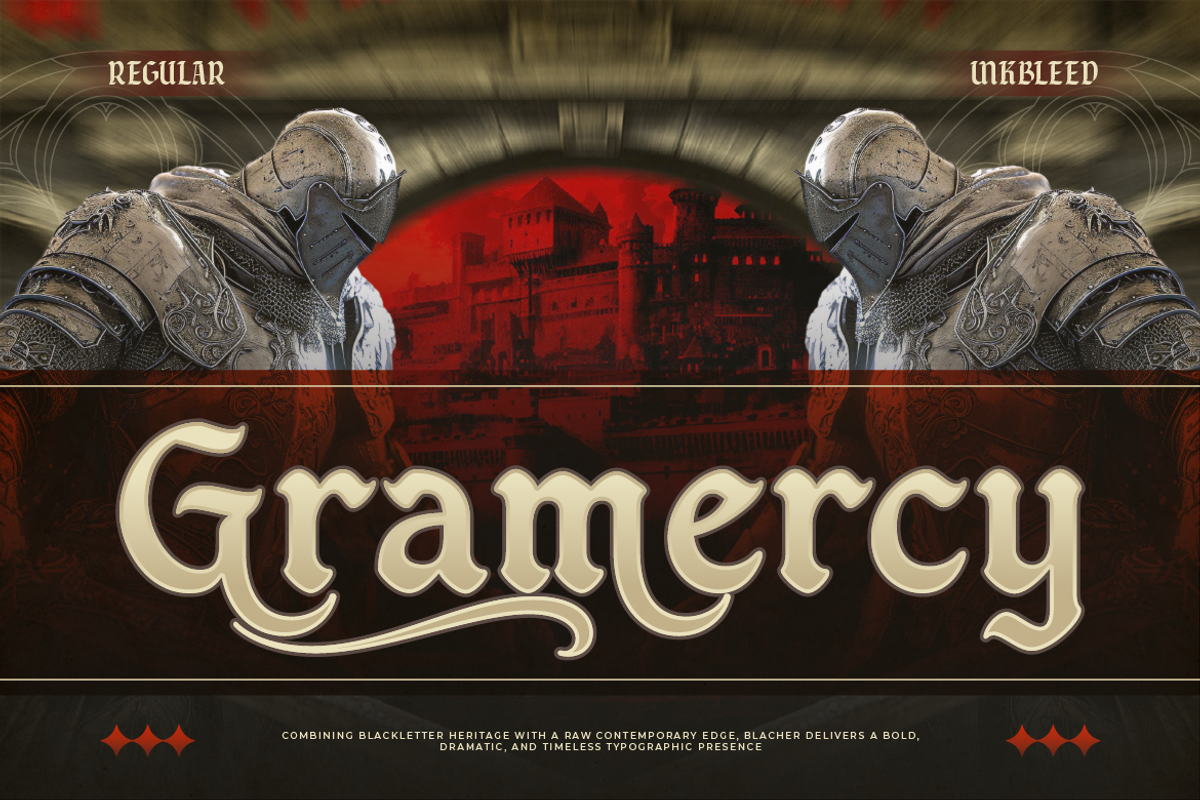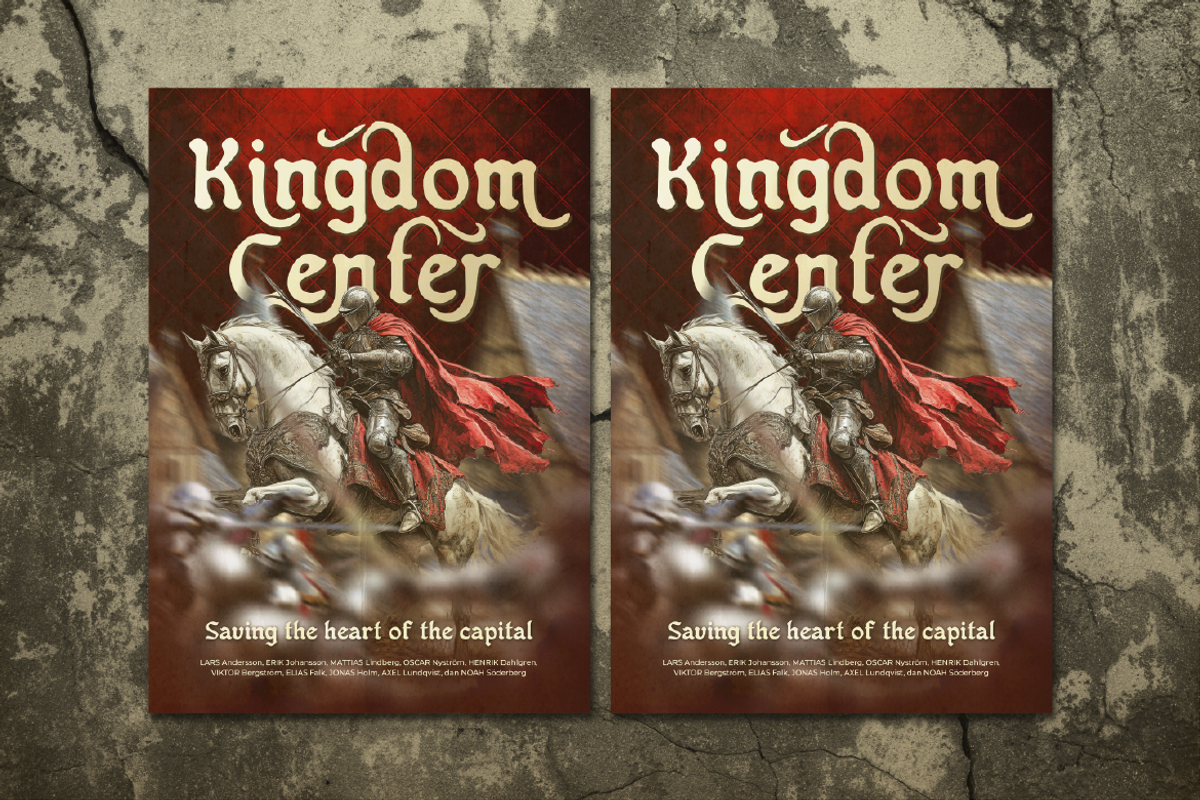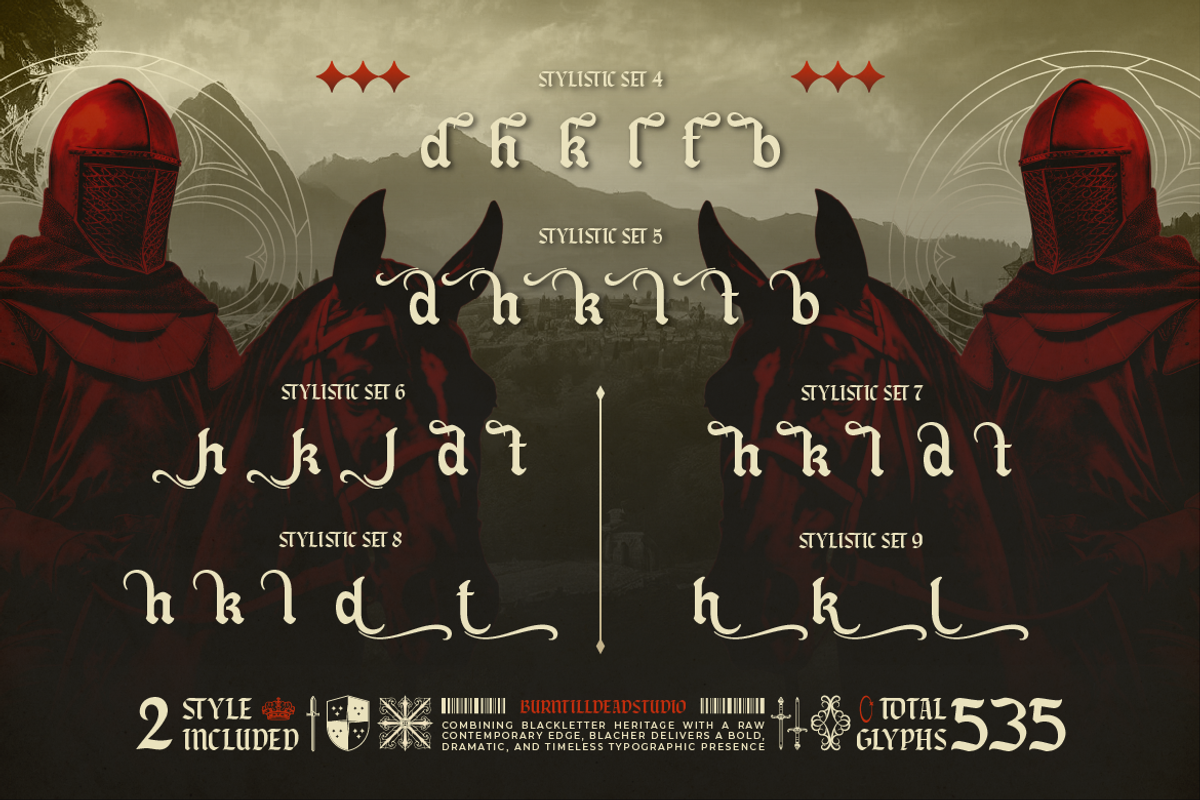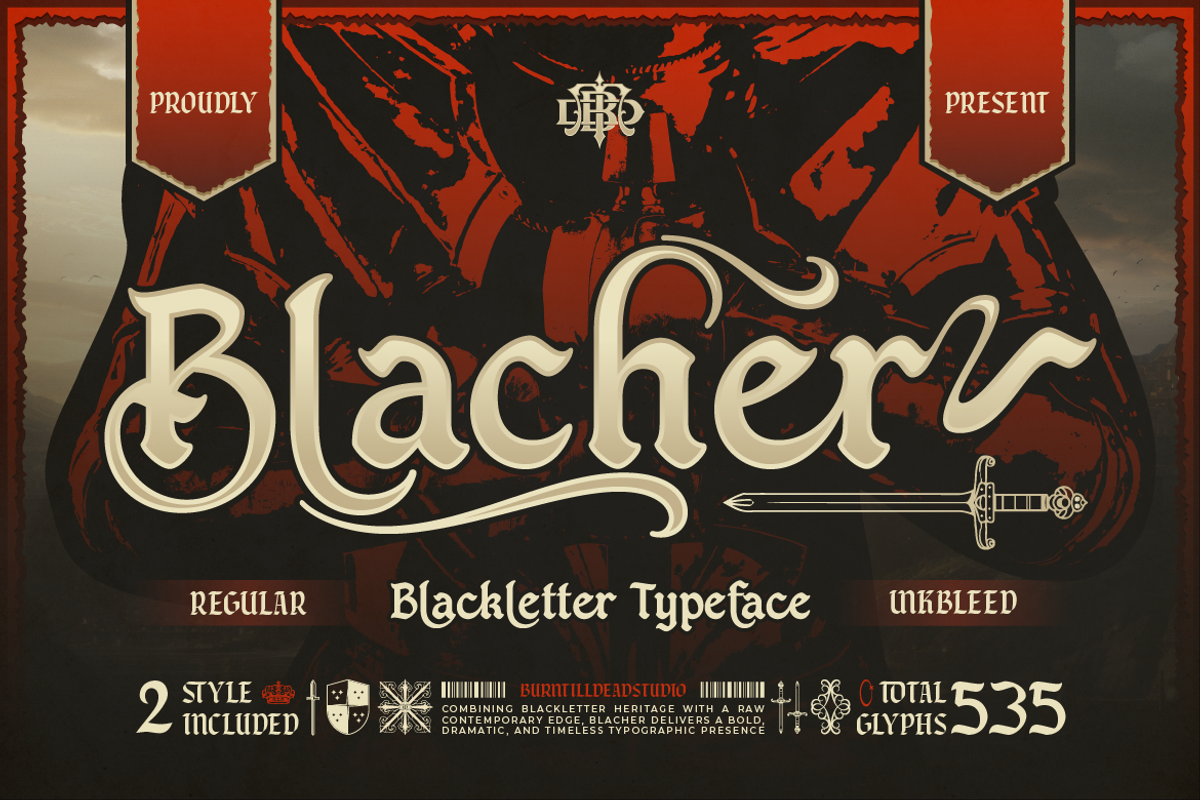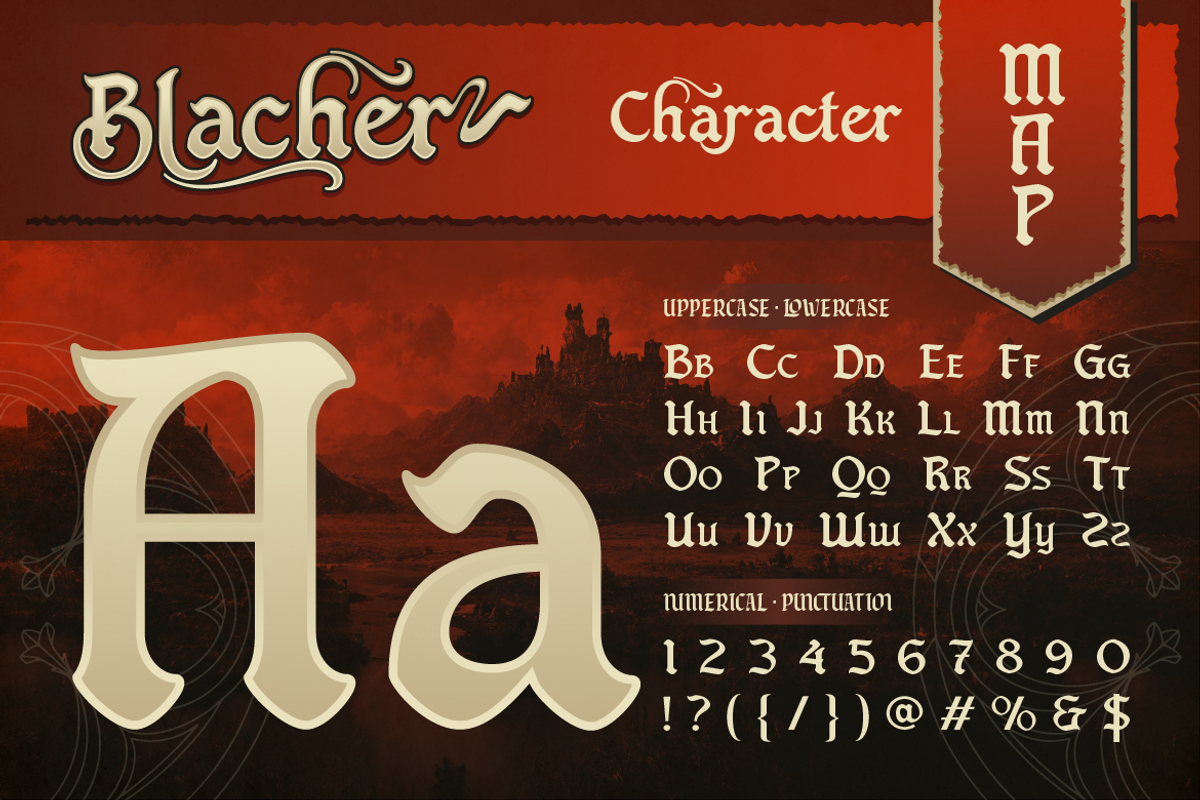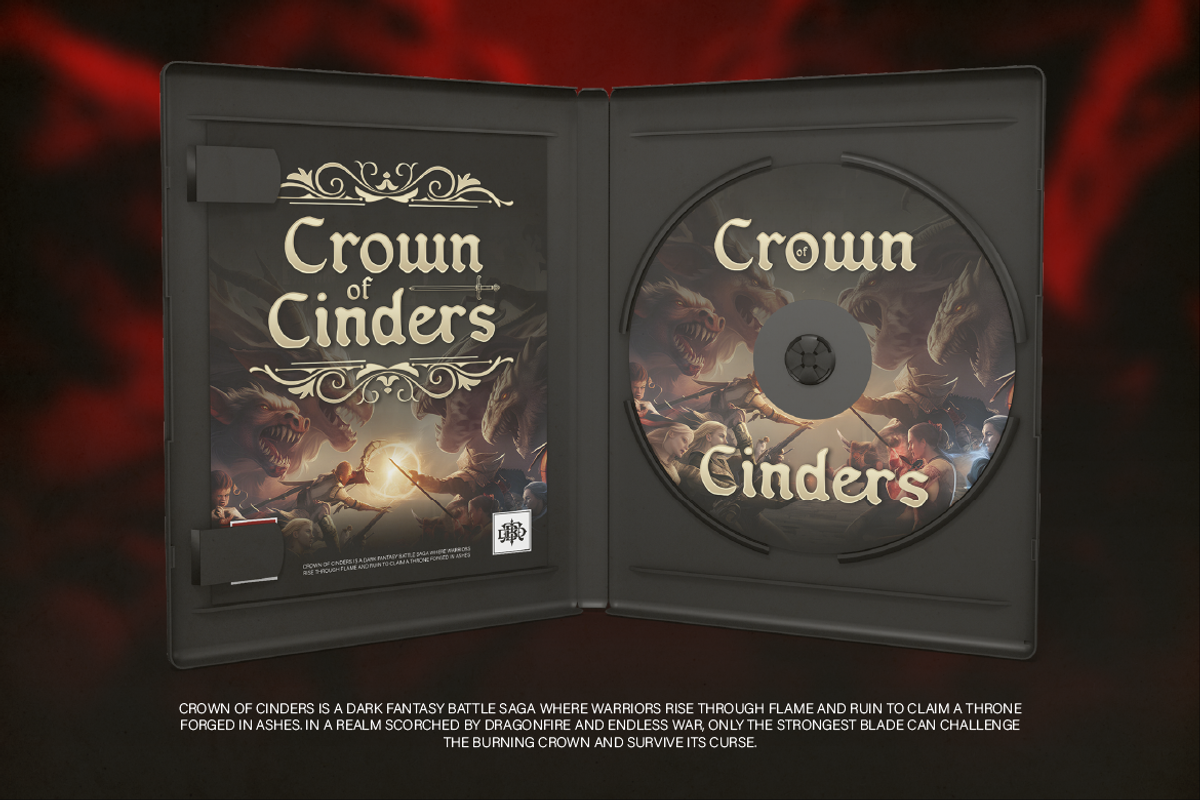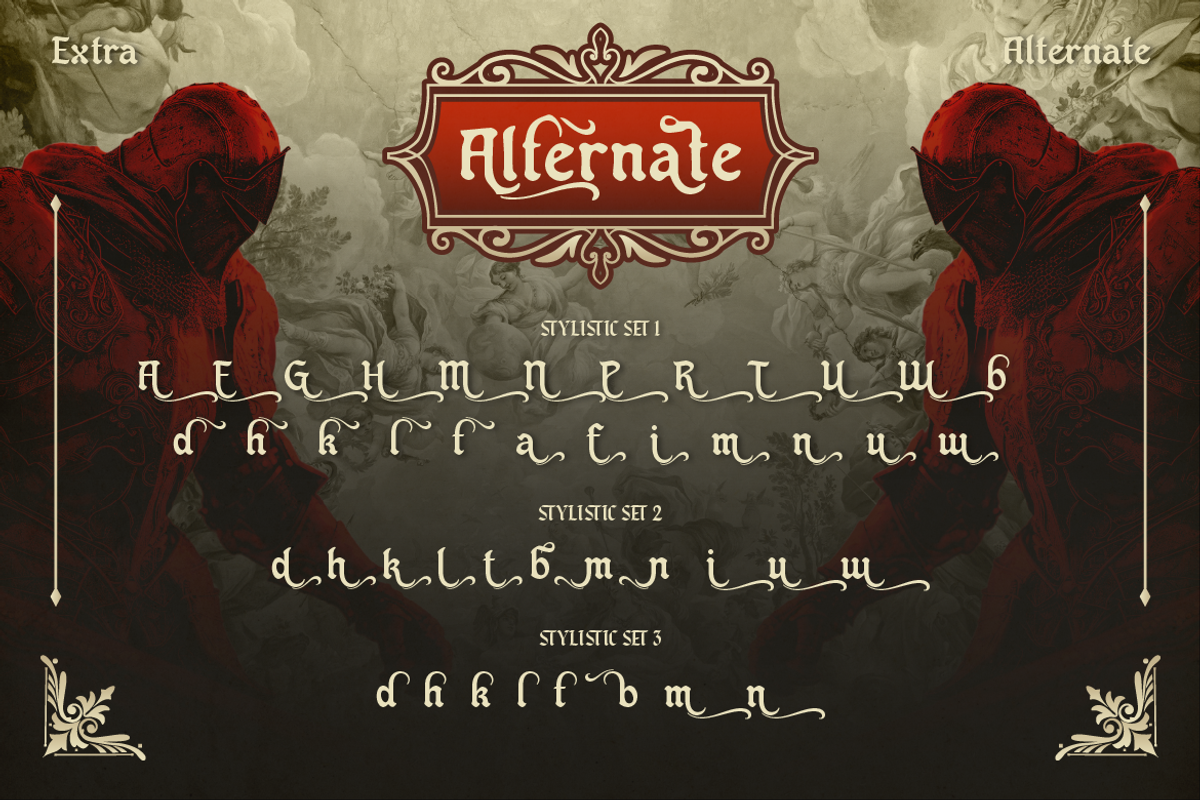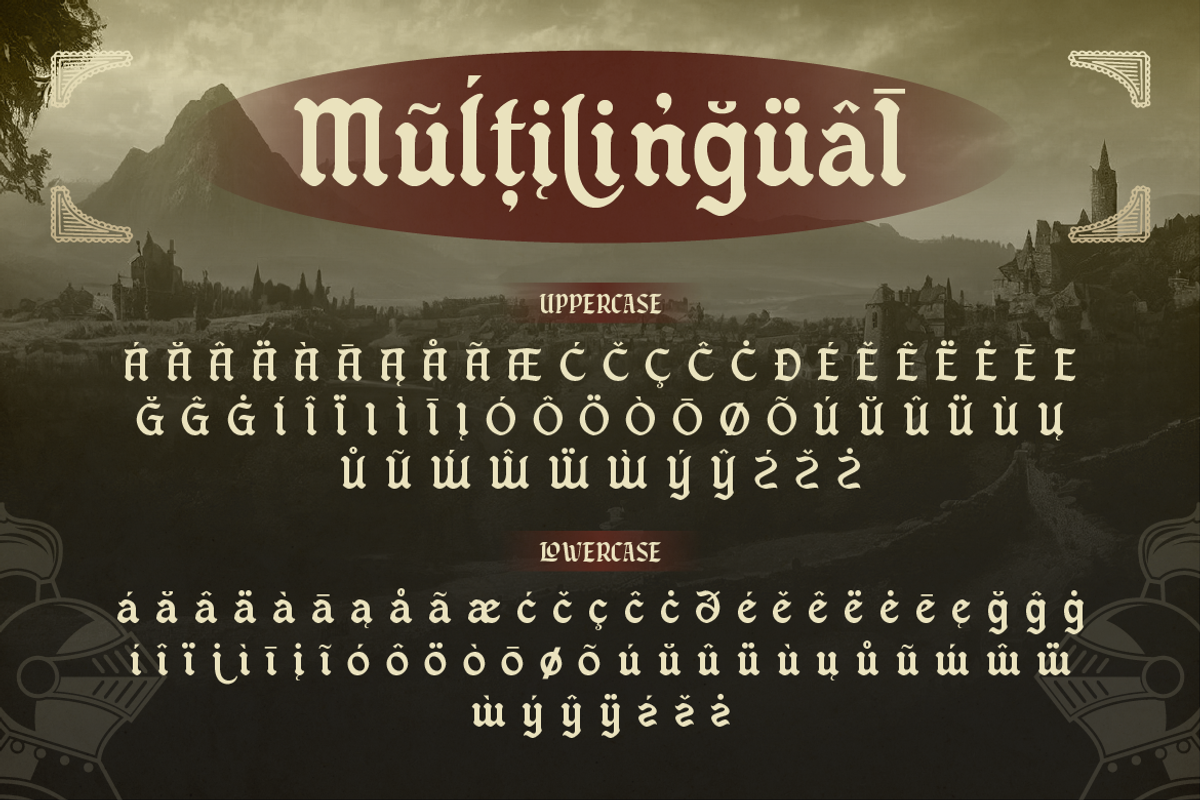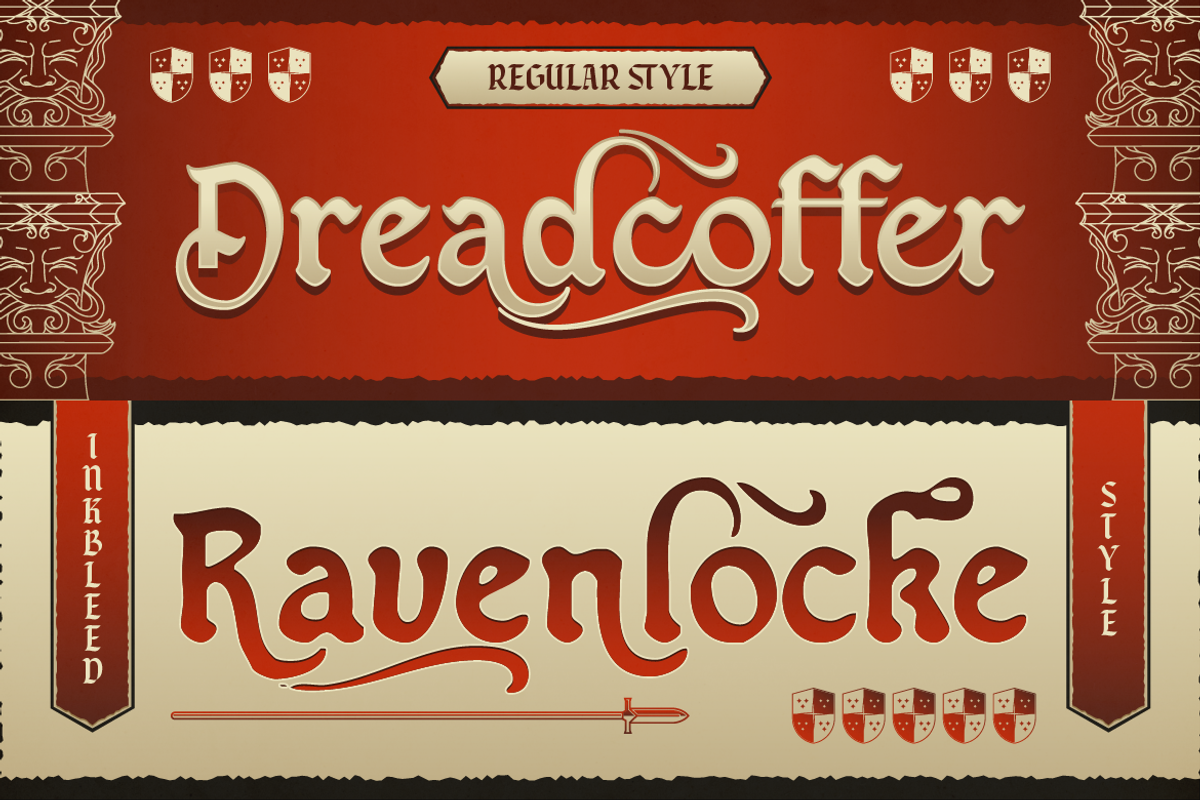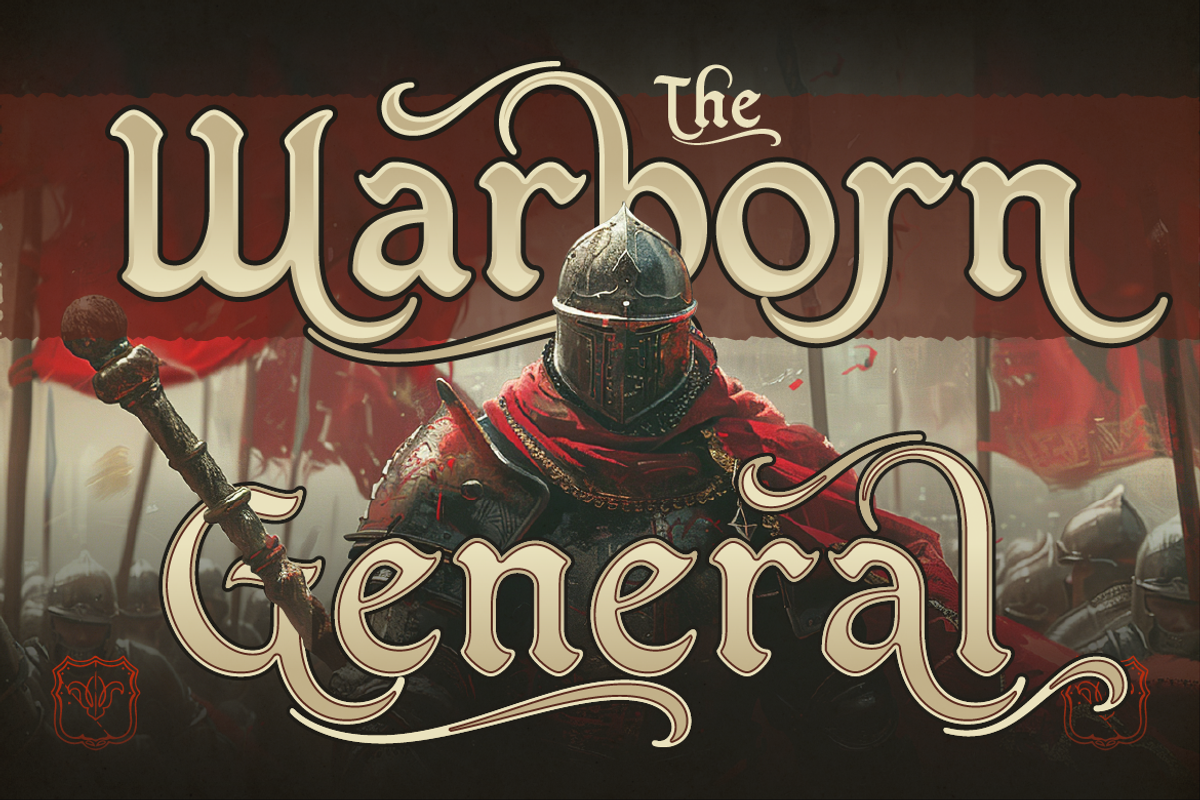
Blacher
Blacher is a bold blackletter typeface that blends classic medieval vibes with a clean contemporary touch. Designed to stand strong and look powerful, this font brings a dramatic and timeless feel to any project.
With its sharp yet elegant letterforms, Blacher is perfect for designs that need a strong historical character but still feel modern and readable. The carefully crafted alternates give you plenty of creative freedom to build unique and eye-catching typography.
Whether you're working on branding, posters, merchandise, or editorial layouts, Blacher helps your text look confident and rich. Also perfect for medieval & fantasy themes, album covers & band merch, vintage branding, posters & headlines, gaming and cinematic titles.
A - Z set (Uppercase & Lowercase)